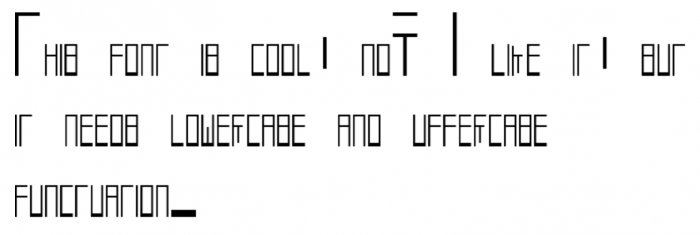
• This is a random font I decided to make. The basis for all the letters and symbols is a 6-line grid-type shape (the asterisk has kept the original shape, so you can see it there). The letters may do whatever they want with the lines. The letters and characters may also divide lines, using only part of the line instead of all of it, but only in segmented areas. This is Standard script, meaning no segments. There are three ways of making the letters: the Standard script (seen here), the High script (two segments, one on either side of the middle line), and Advanced script (four segments, one on either side of the middle line aswell as one in the center of the middle line and one in the center of the bottom line). That was a lot, so thanks if you read it all!
"This font is cool, no? I like it, but it needs lowercase and uppercase punctuation."